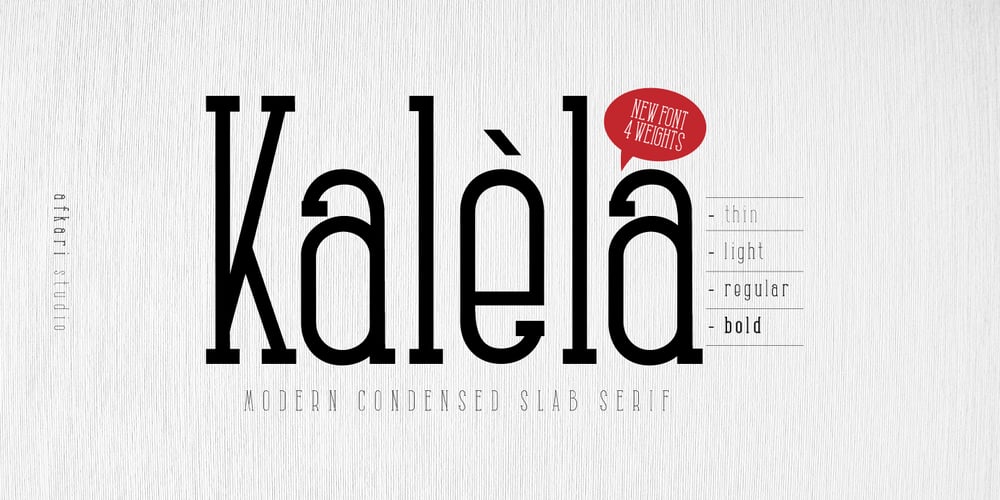
Kalela Slab
Kalela Slab Font Family was designed by Musthafa Kamal Emje and published by Afkari Studio. Kalela Slab contains 4 styles and family package options. Kalela Slab is Condensed Slab Serif Font a Modern Condensed Slab serif with solid font files. Suitable for branding, name card, stationary, design title, blog header, Logo, greeting cards, quotes, posters, art quote, typography.Kalela Slab Condensed Slab Serif Font also suitable for your any projects.Iclude:Kalela Slab With 4 Weight; Thin, Light, Regular and BoldFeatures :โ€“ Upper Case & Lowercase (All Caps)โ€“ Numerals & Punctuations (OpenType Standard)โ€“ Accents (Multilingual characters)No special software is required to use Kalela Slab Condensed Slab Serif Font